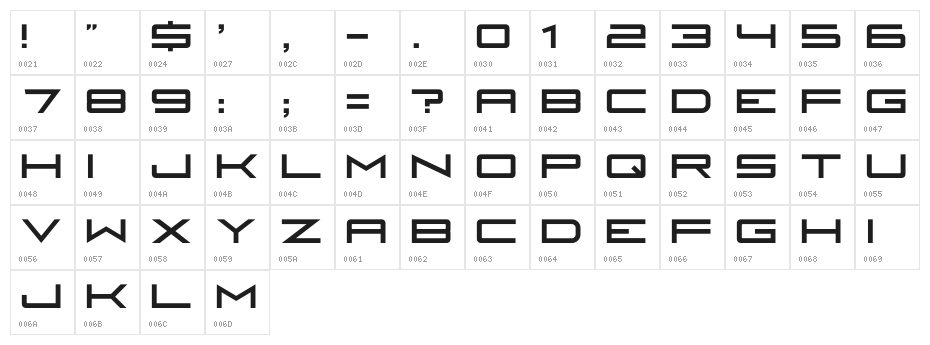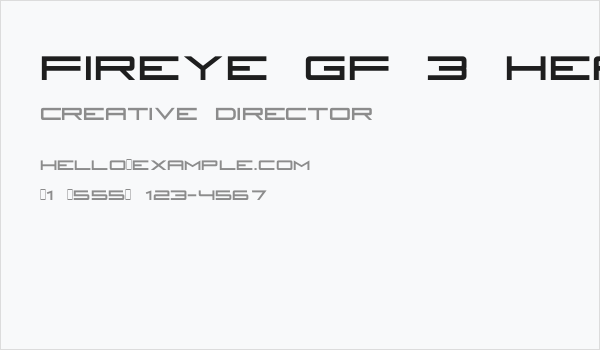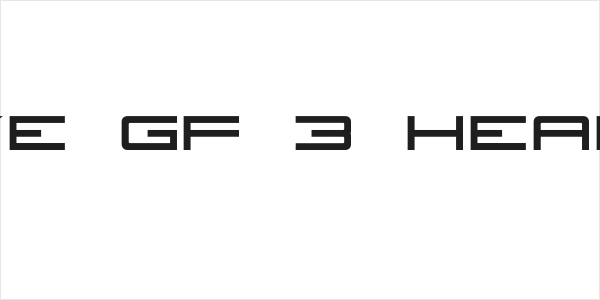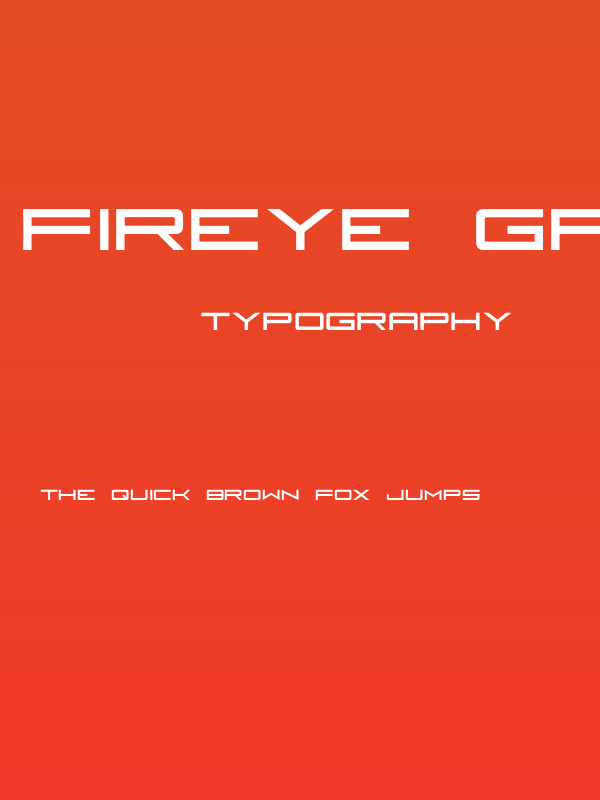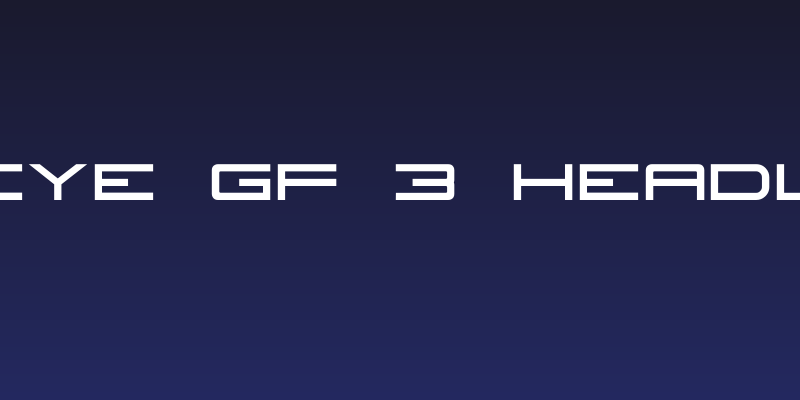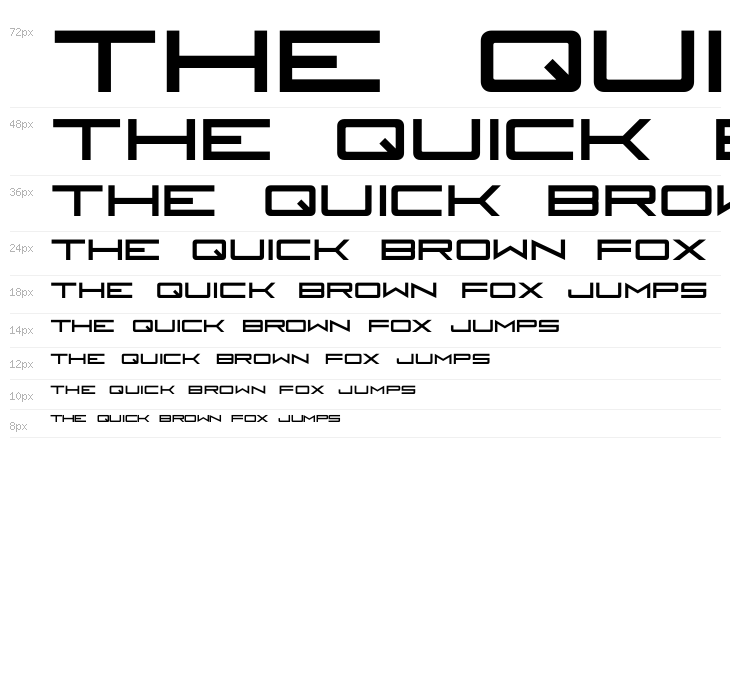
Fireye GF 3 Headline Font
Fireye GF 3 Headline Description
This font features a futuristic and geometric design, characterized by its sharp angles and clean lines. The uppercase letters are uniform in height, creating a cohesive and structured appearance. The lowercase letters maintain a similar geometric style, ensuring consistency throughout the typeface. The numerals are bold and distinct, with a modern aesthetic that complements the overall design. Special characters are crafted with the same attention to detail, making them easily recognizable and visually appealing. This font is ideal for projects that require a modern and tech-inspired look.
| Use Case | Headlines, Logos, Digital Interfaces |
| Proposed Projects | Ideal for technology branding, sci-fi posters, and modern digital interfaces. |